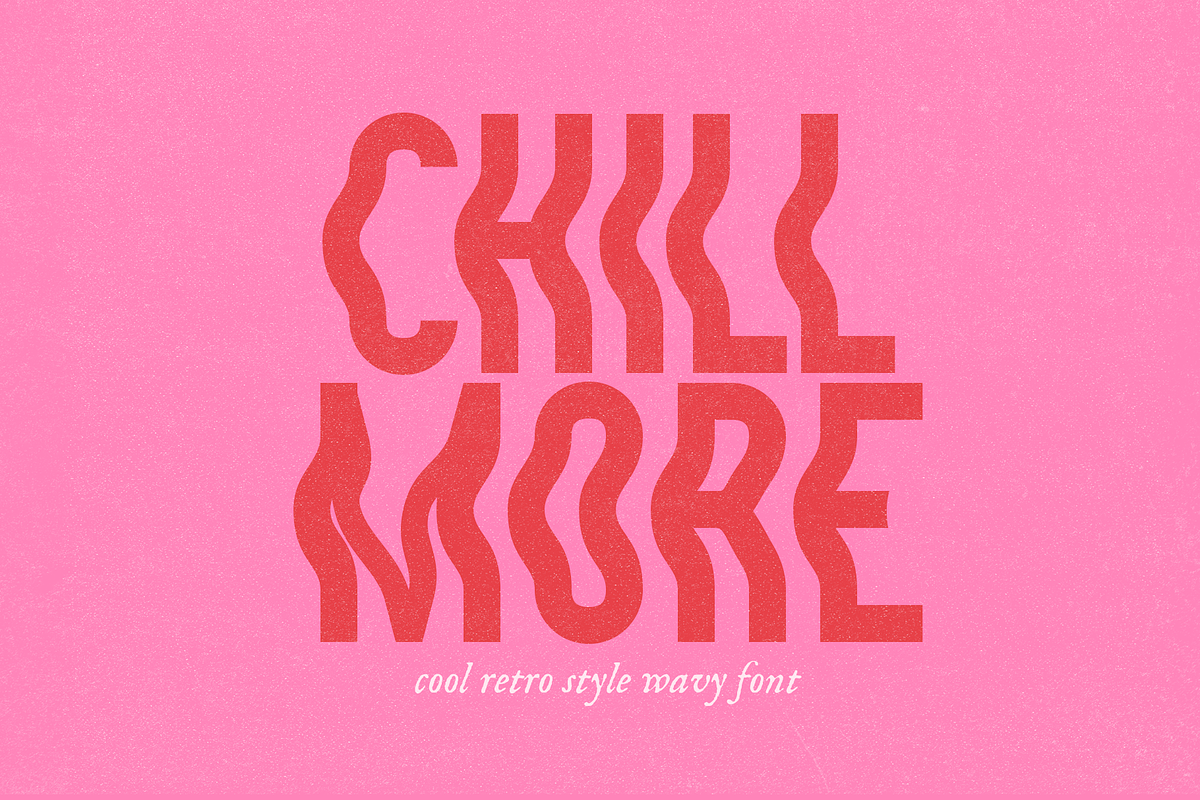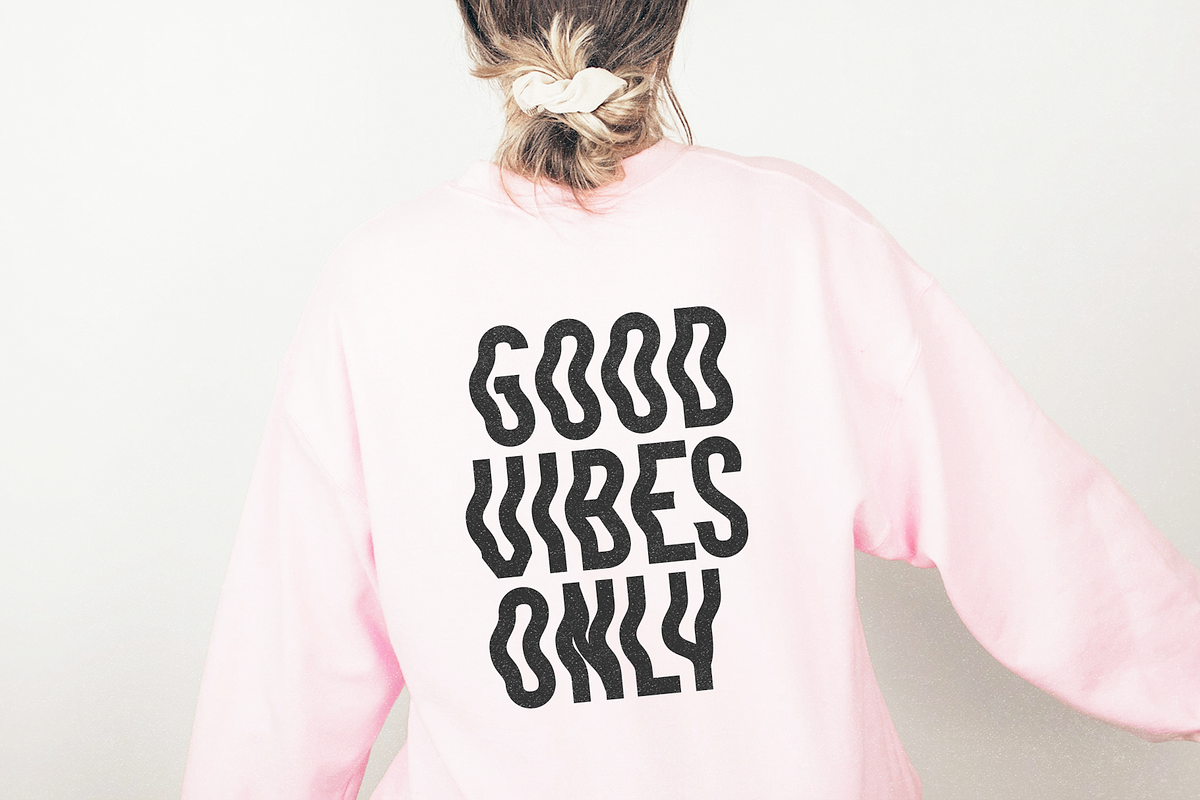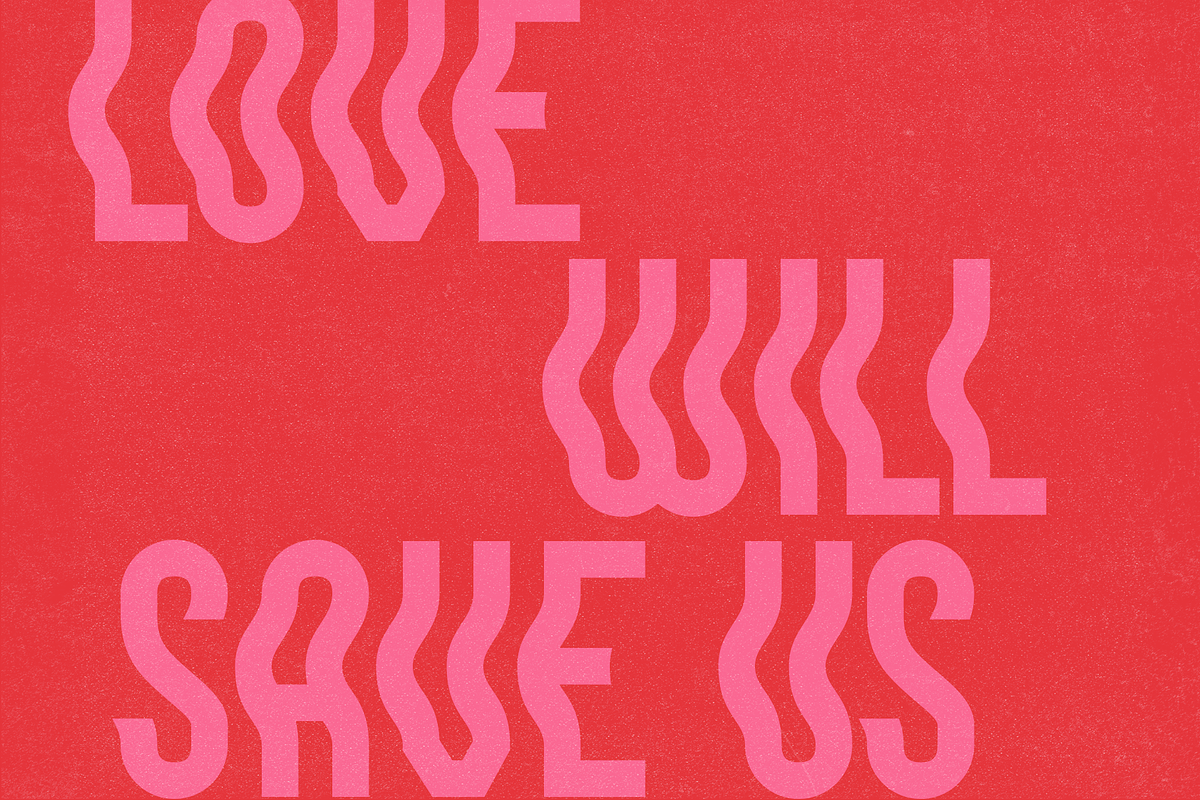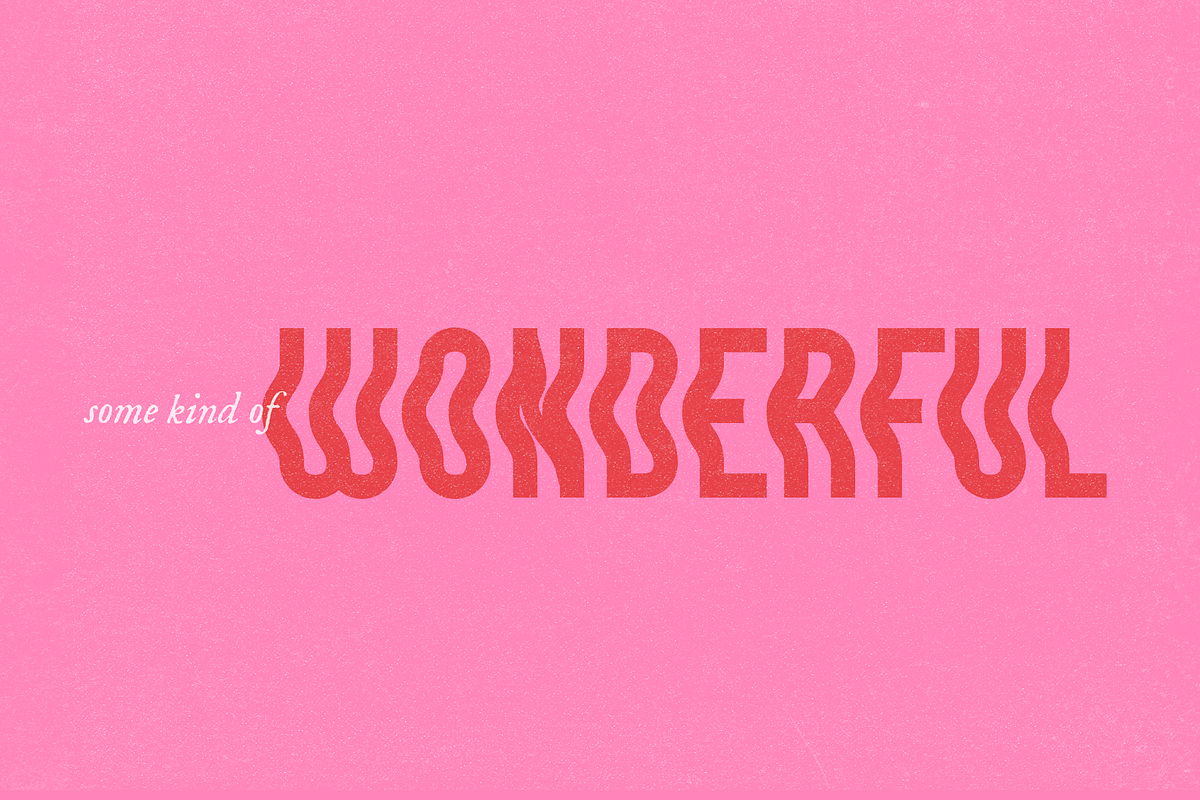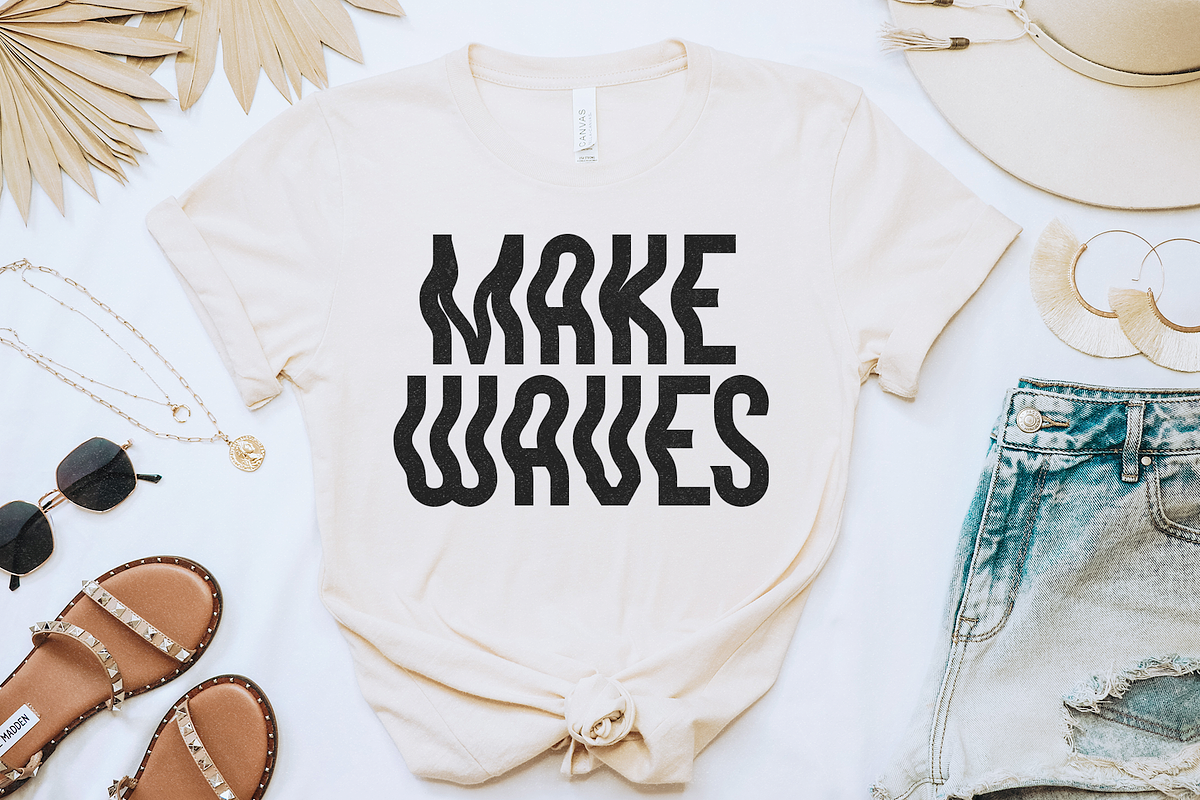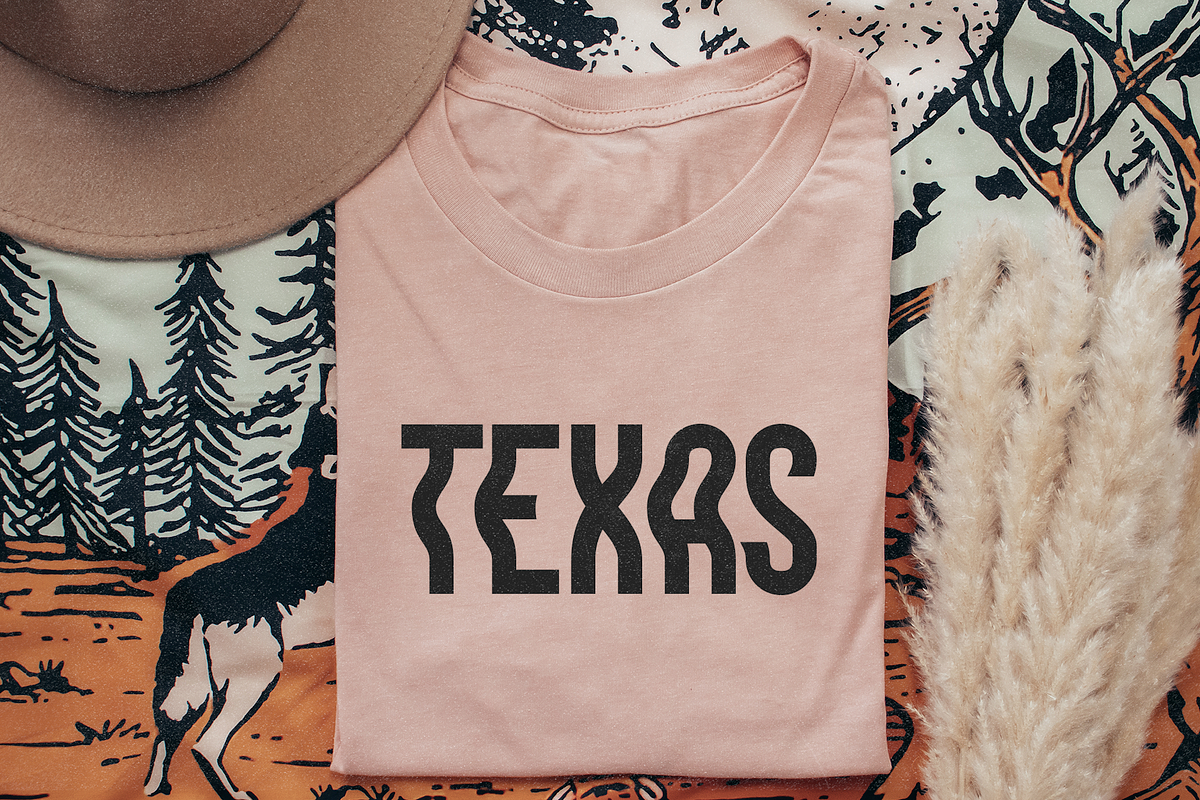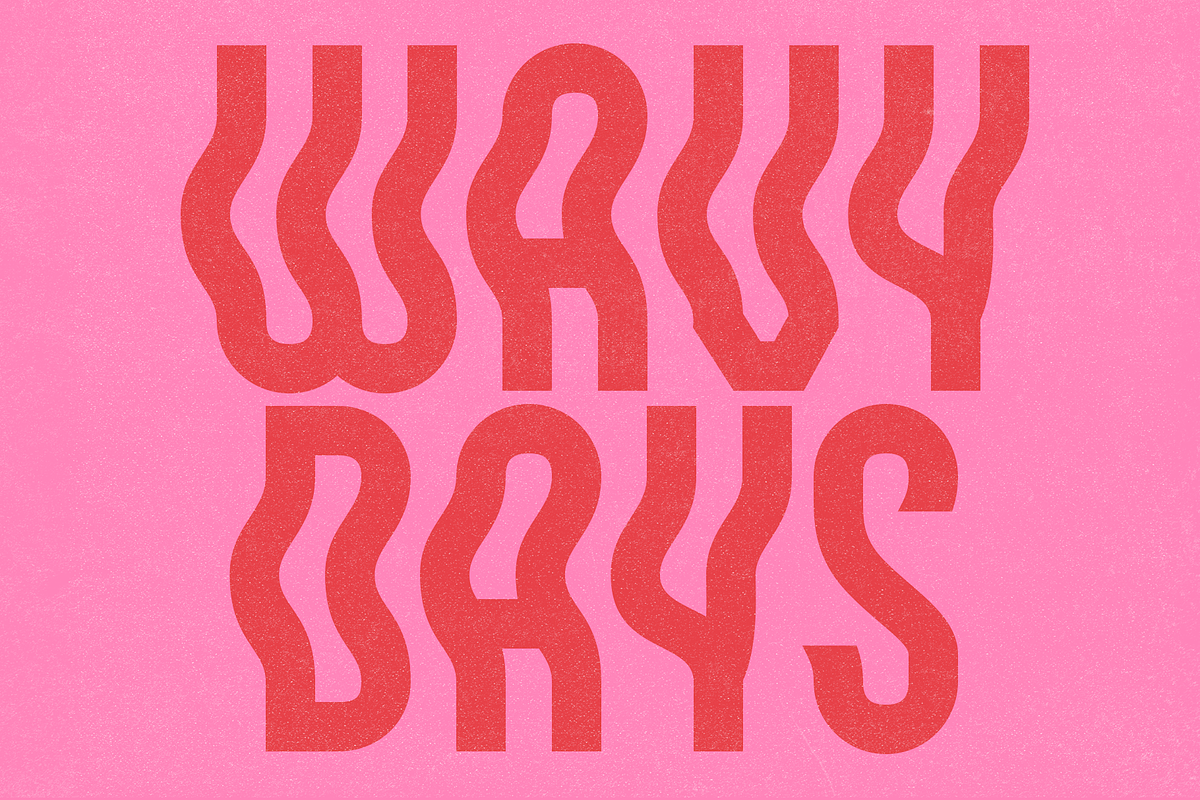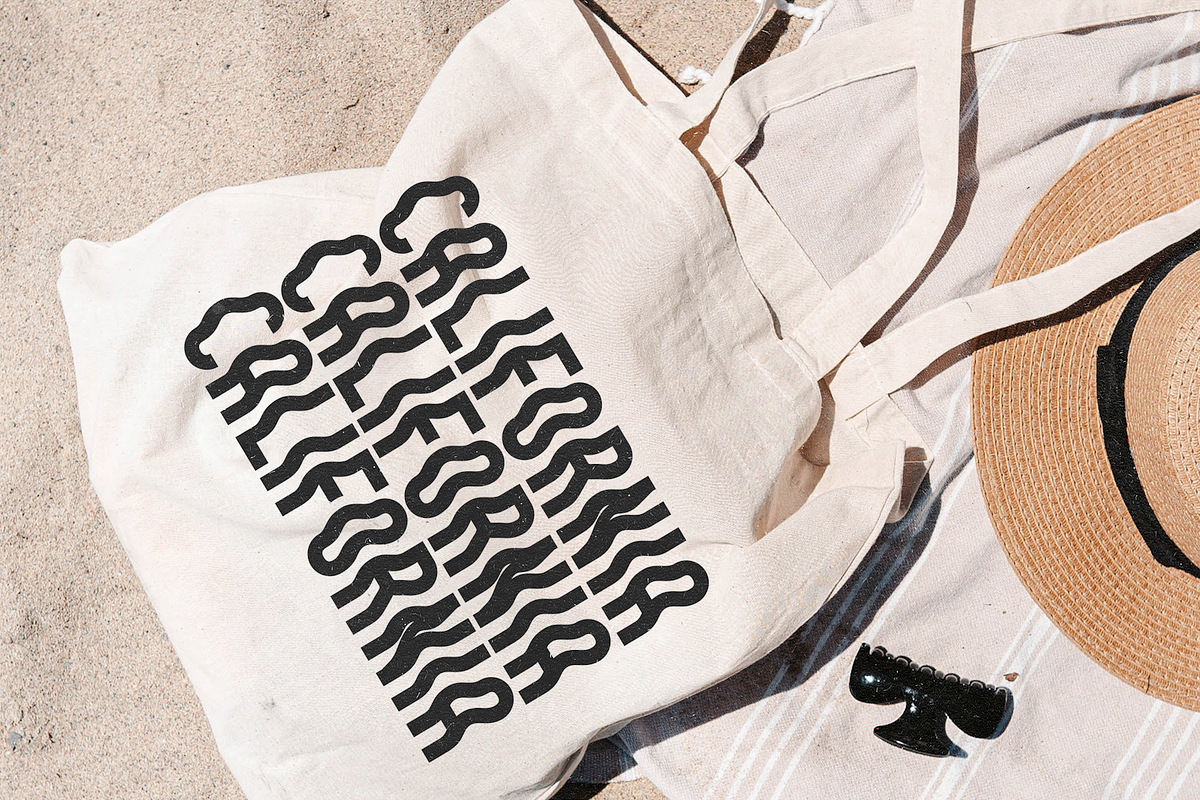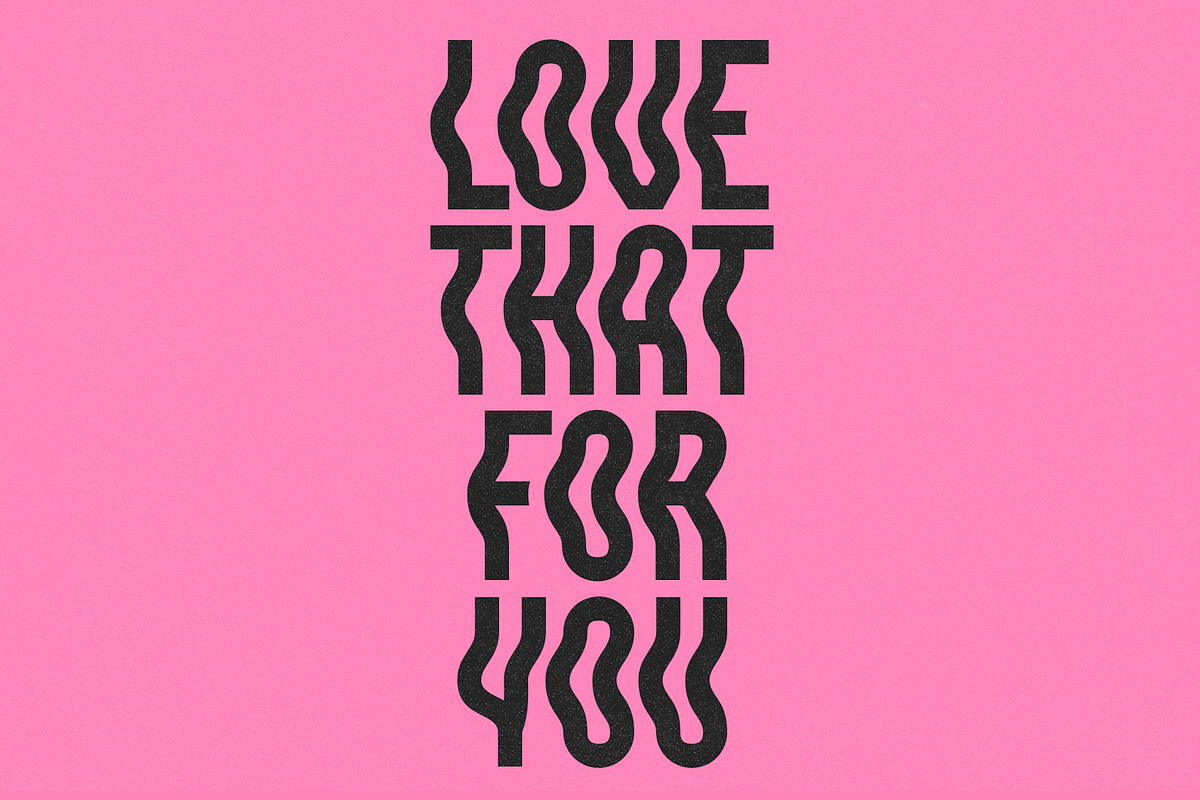
Chill More | Wavy Sans Font
Chill More is a cool wavy sans font.
This font looks best in short phrases or words. Chill More is perfect for shirts, advertisements, social media, craft projects, signs, wall art and more!